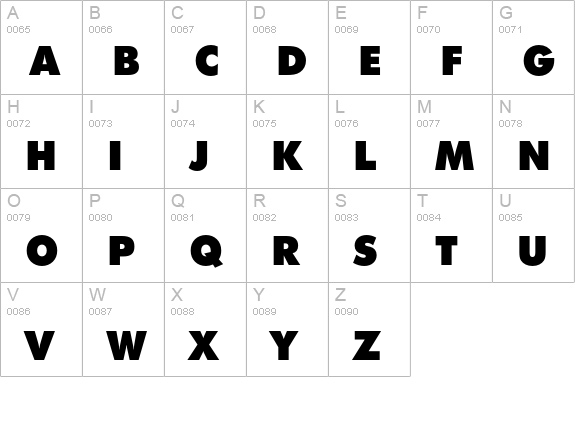
Futura Extra Black Font Details
Futura Extra Black is a maximum-weight, dramatic variant in the Futura typeface family \xE2\x80\x94 well suited to maximum-impact headlines, posters, and packaging.
Futura Extra Black is a bold and impactful font that exudes a modern and sleek aesthetic. With its thick strokes and clean lines, this typeface commands attention and makes a bold statement in any design project. Its strong and confident appearance makes it perfect for headlines, posters, and branding materials. And the best part? Futura Extra Black is available for free download at FontsMarket.com. Whether you're a designer looking to add a powerful touch to your creations or a business owner seeking a standout font for your marketing materials, Futura Extra Black is a versatile choice that won't cost you a penny. Download it now and unleash the boldness of Futura Extra Black in your designs.